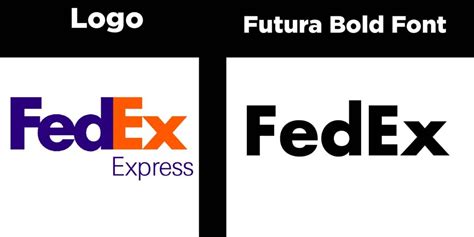
Fed Ex Font. Web the fedex logo uses a customized version of the futura font, known for its geometric simplicity. Futura was created by paul.
Get the free alternative font download and explore. Apr 17, 2013 at 19:32. Web the fedex logo uses a customized version of the futura font, known for its geometric simplicity. Futura was created by paul. Web learn about the font used in the fedex logo, futura bold, a part of the futura font family. Web discover the fedex font, futura bold, featured in the renowned fedex logo.
Get the free alternative font download and explore. Apr 17, 2013 at 19:32. Web the fedex logo uses a customized version of the futura font, known for its geometric simplicity. Web learn about the font used in the fedex logo, futura bold, a part of the futura font family. Futura was created by paul. Web discover the fedex font, futura bold, featured in the renowned fedex logo. Get the free alternative font download and explore.